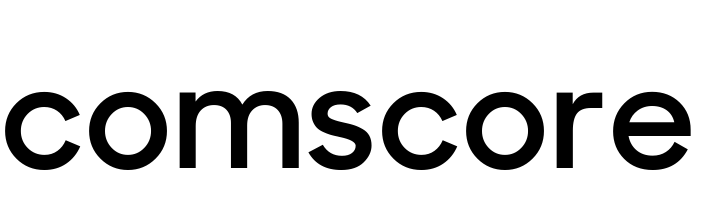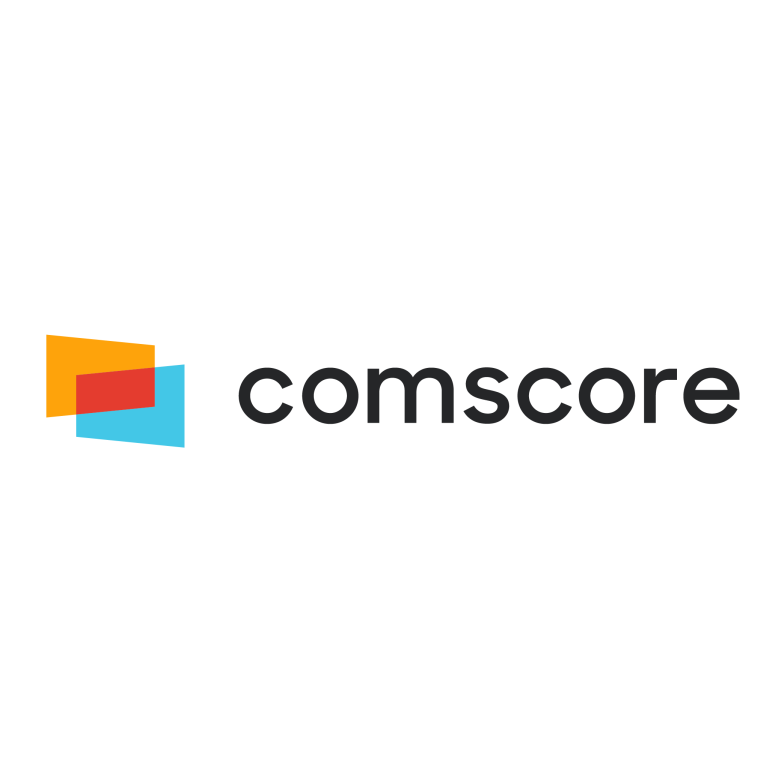
Comscore Logo Font
Fonts in UseComscore is a data analytics company that provides insights and metrics on digital media and marketing effectiveness, including audience measurement and advertising metrics.
In October 2018, the New York City-based design agency Firstborn created the Comscore logo, which features the geometric Sharp Sans Display No.1 Semibold font by Lucas Sharp.